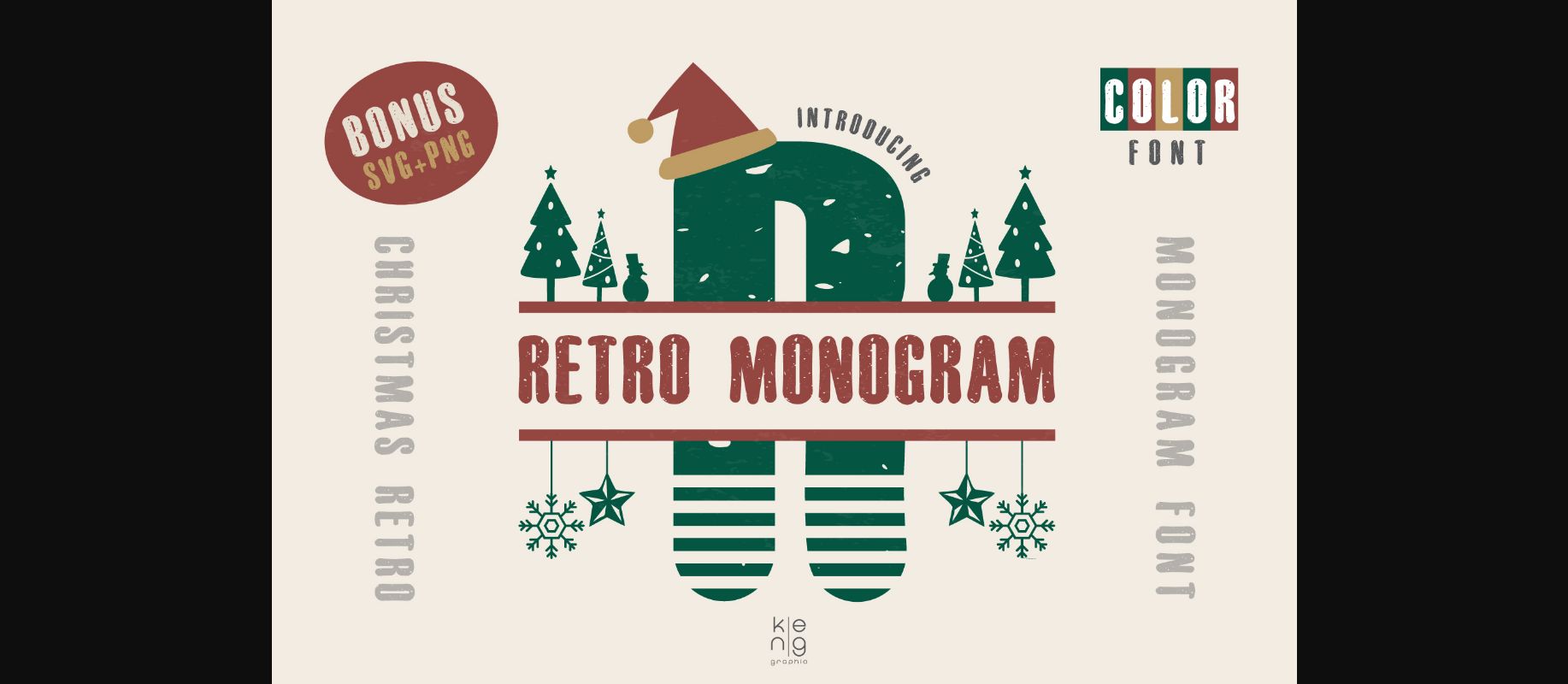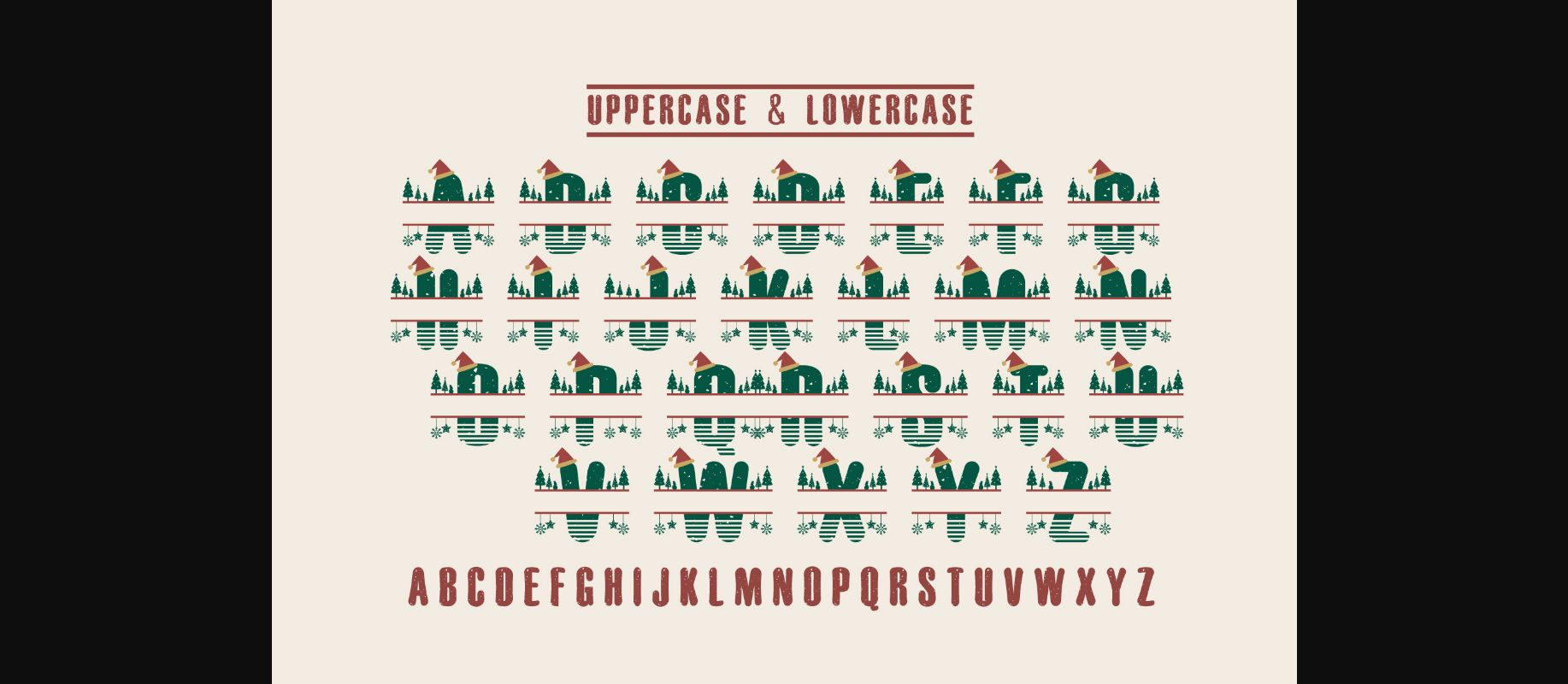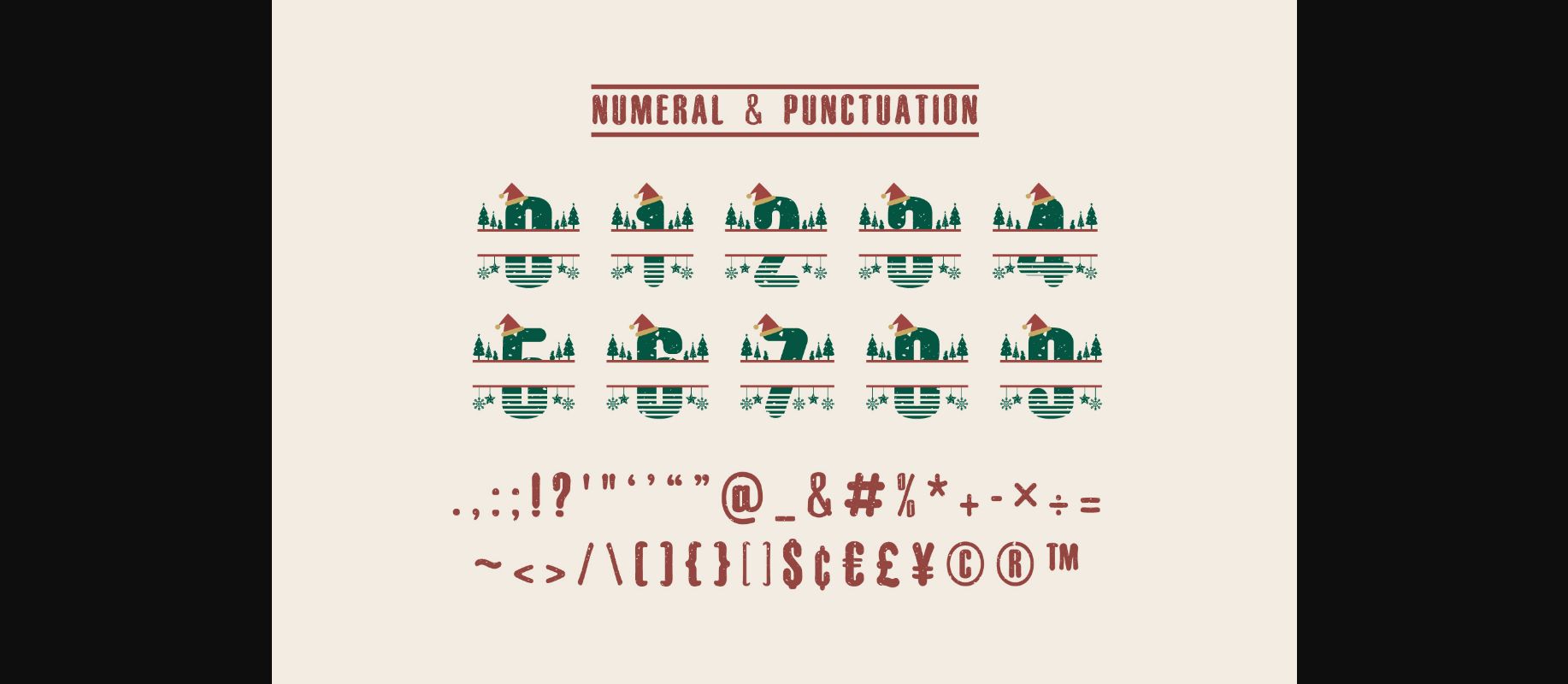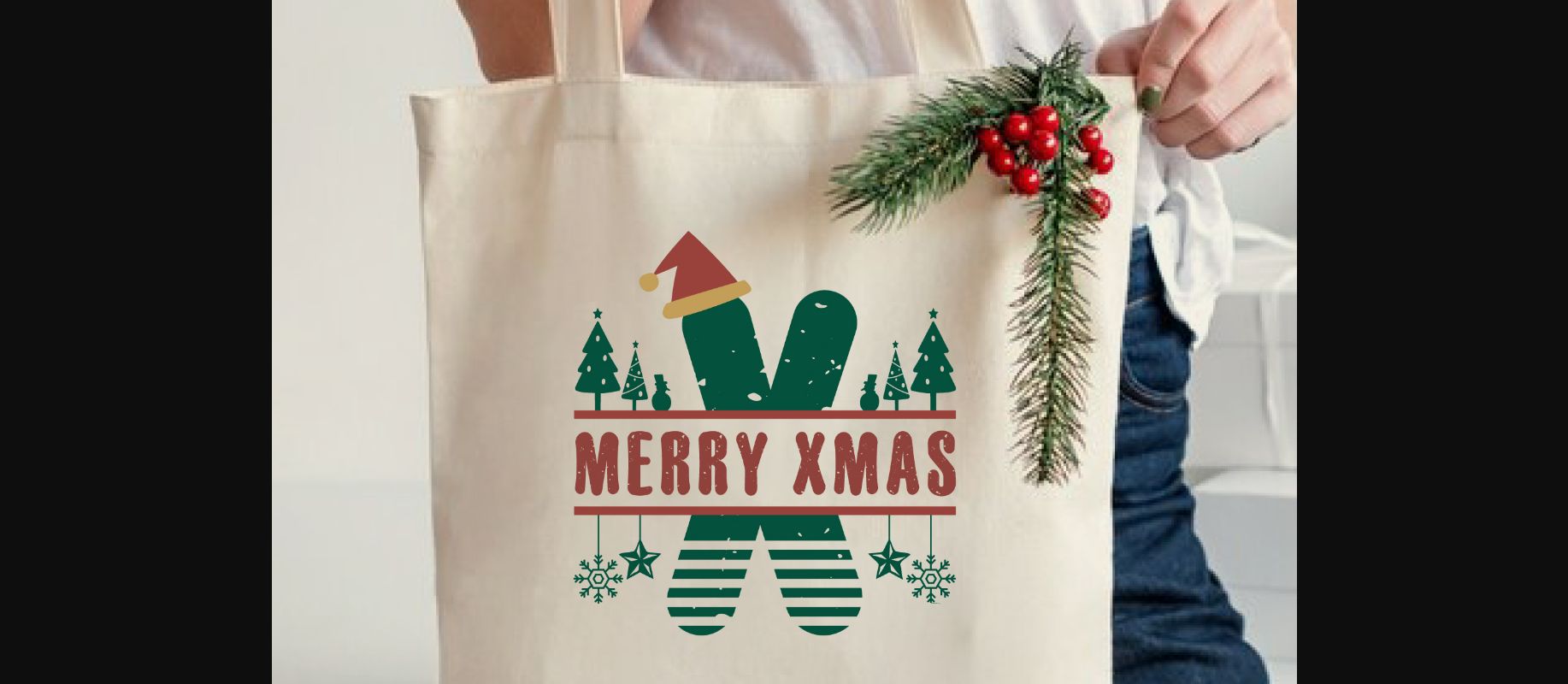
About Retro Monogram Font
Retro Monogram font is a clean vintage-style retro Monogram font. Inspired by the retro typography and typography of the 70s and 80s, anything written in this font is instantly recognizable and will grab attention. It has a unique shape where every corner is softer and more rounded. Use this display font to add a special retro touch to any design idea you can think of.